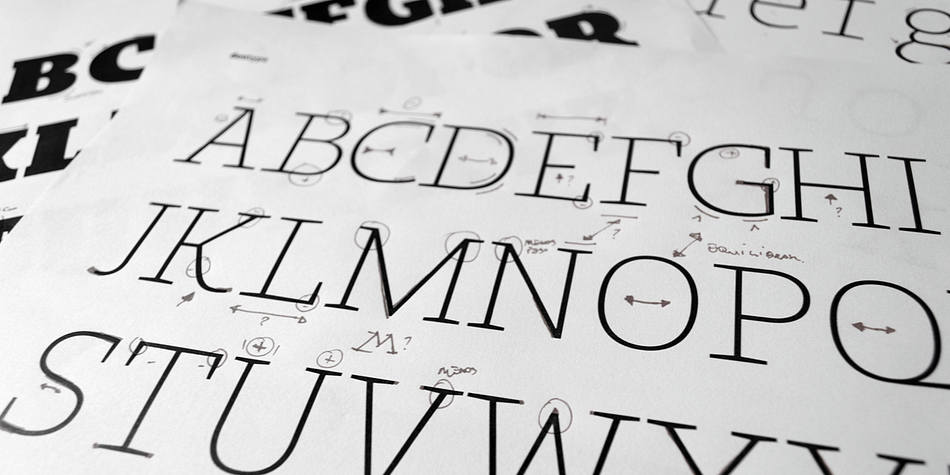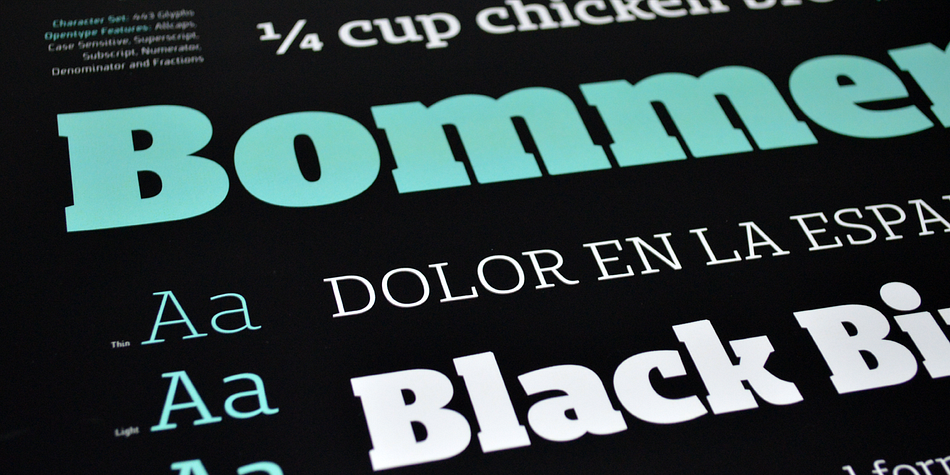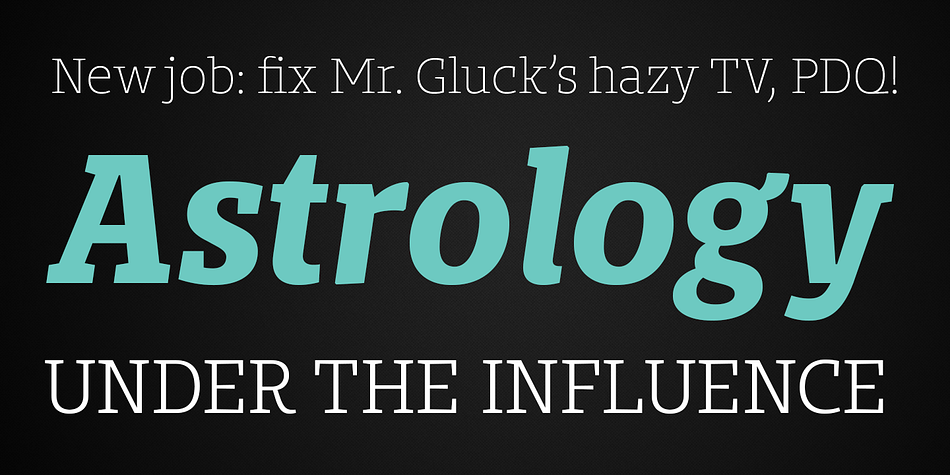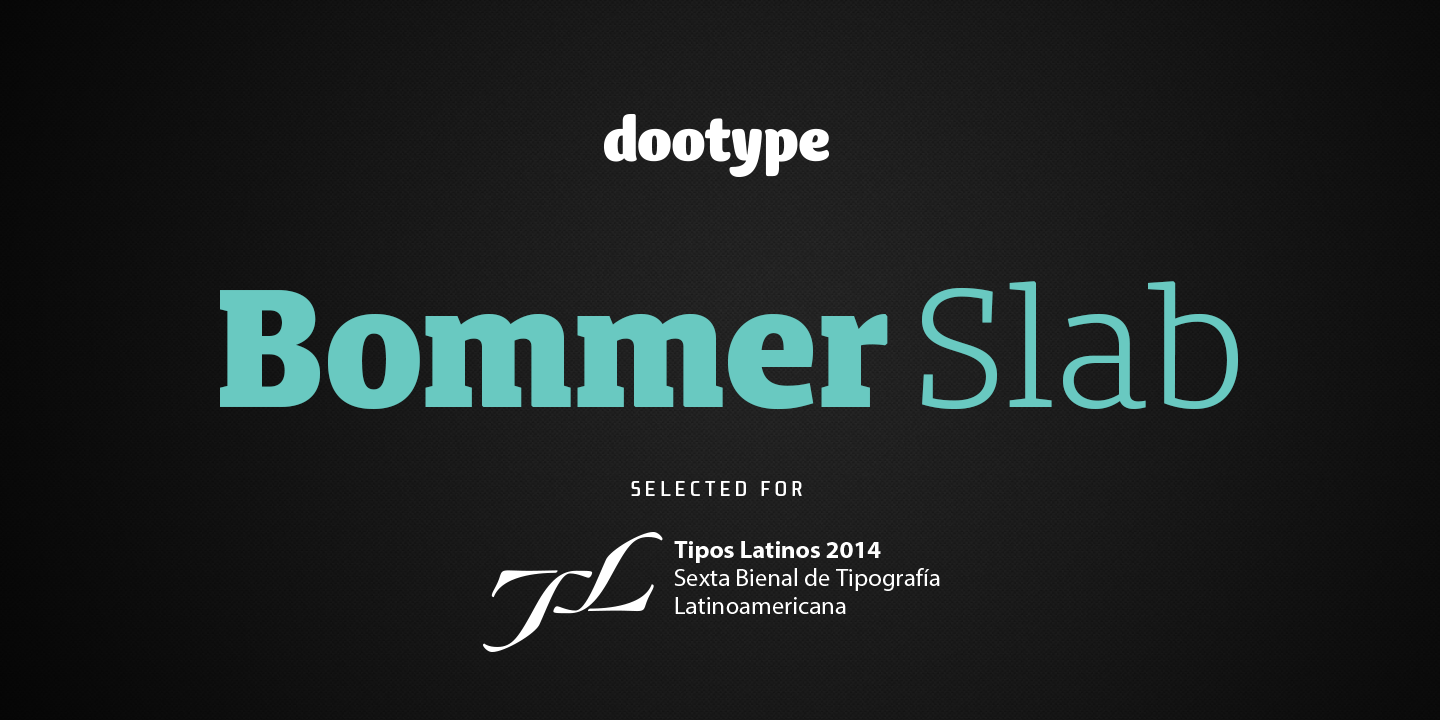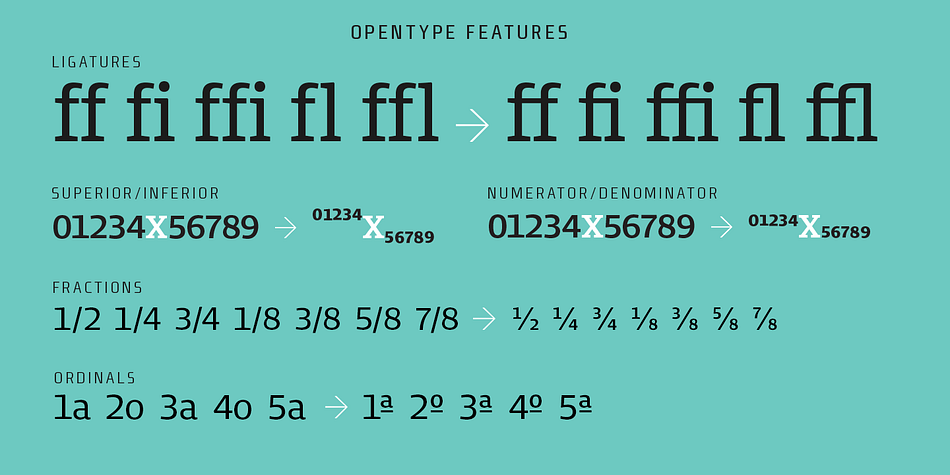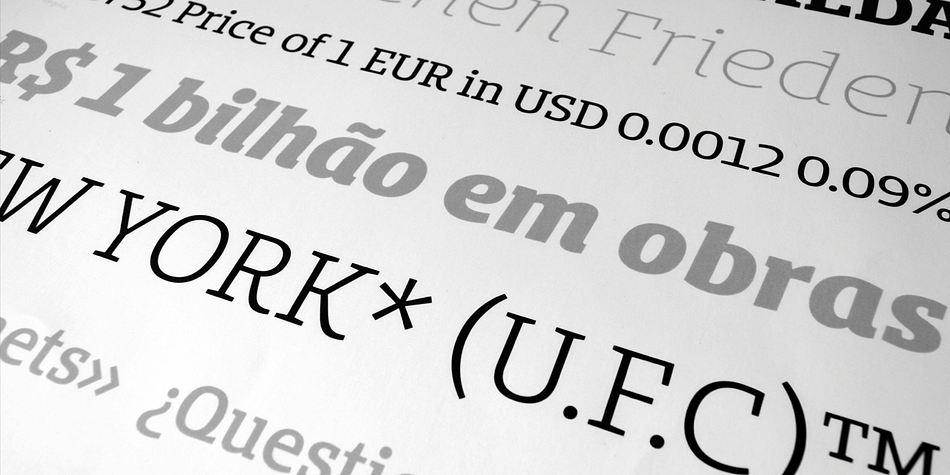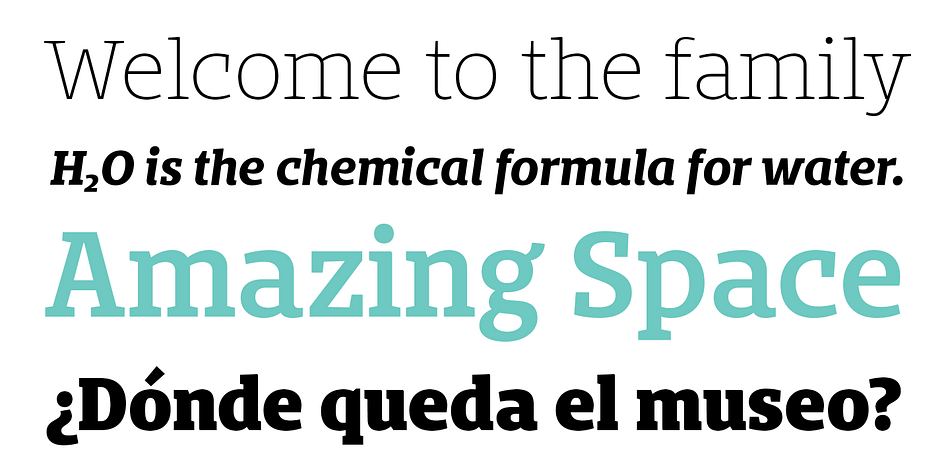
Bommer Slab is a slab serif font family. This typeface has fourteen styles and was published by dooType.
Bommer project started in January of 2014 and I am happy to announce the first family - Bommer Slab - is now ready for release. This family includes 14 weights - been seven uprights and seven italics.
This font has a strong personality, that makes it perfect for use in headline sizes but means it also works gracefully within text blocks.
Bommer Slab is just the beginning: a rounded version will be launched next month (May 2014) and condensed and sans versions are estimated for the second semester of 2014.